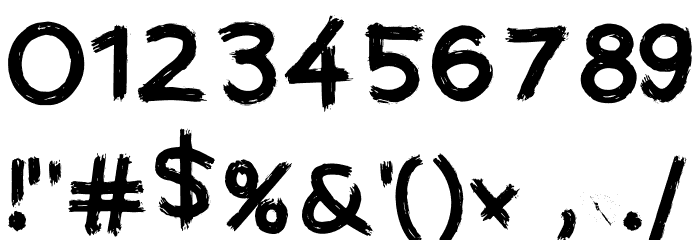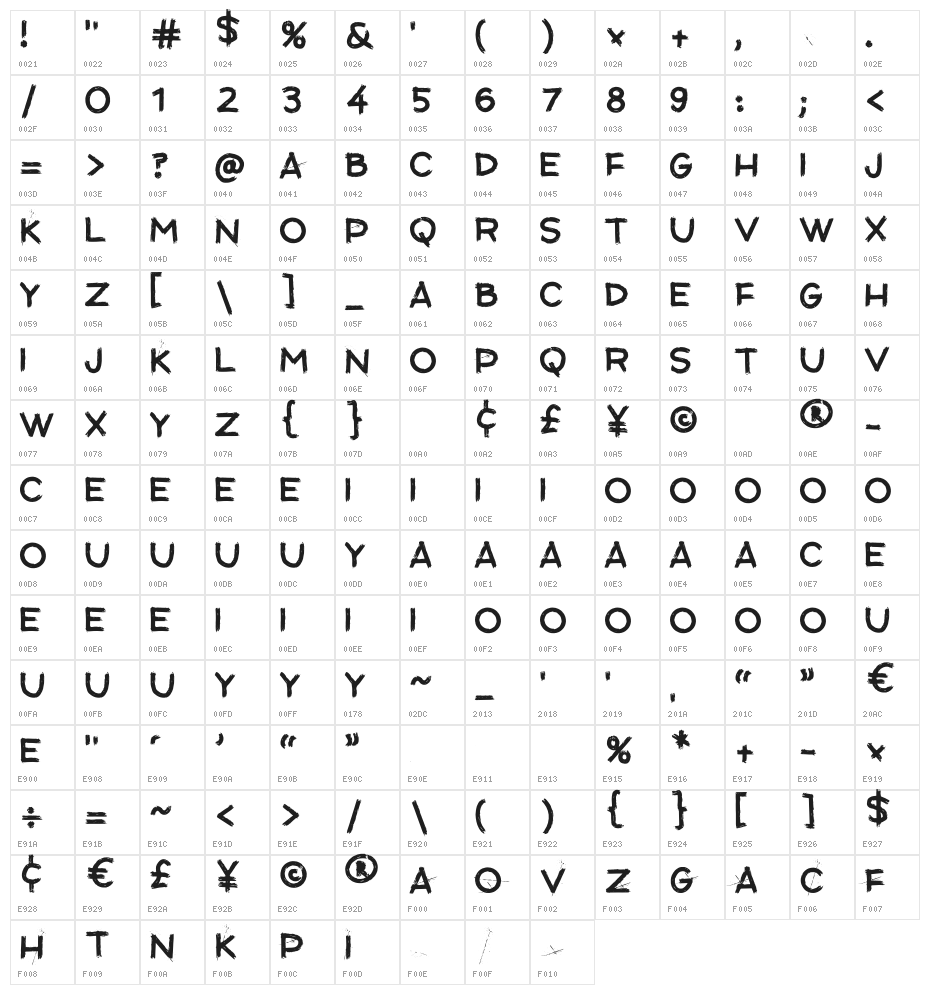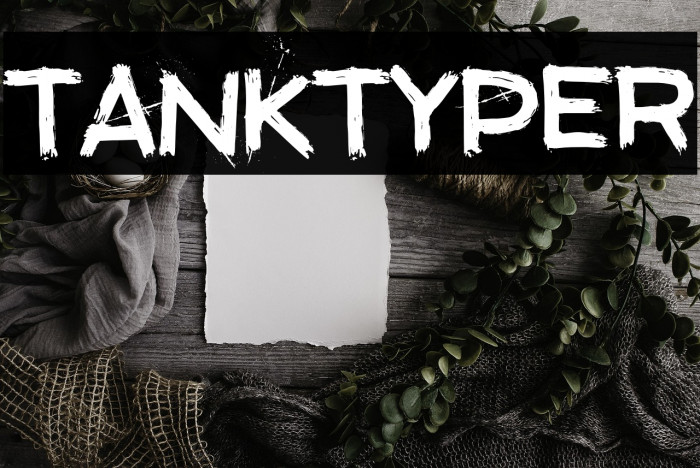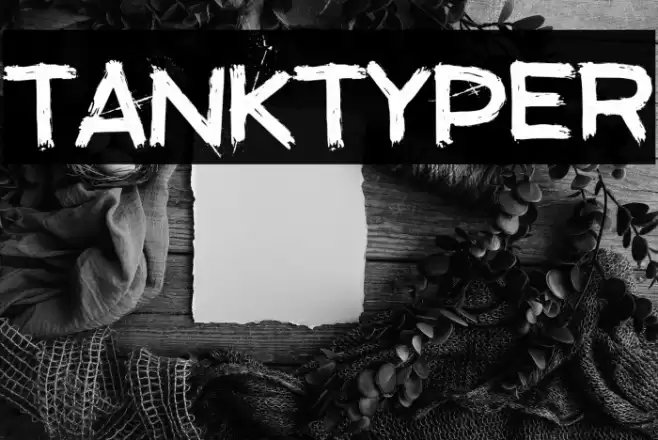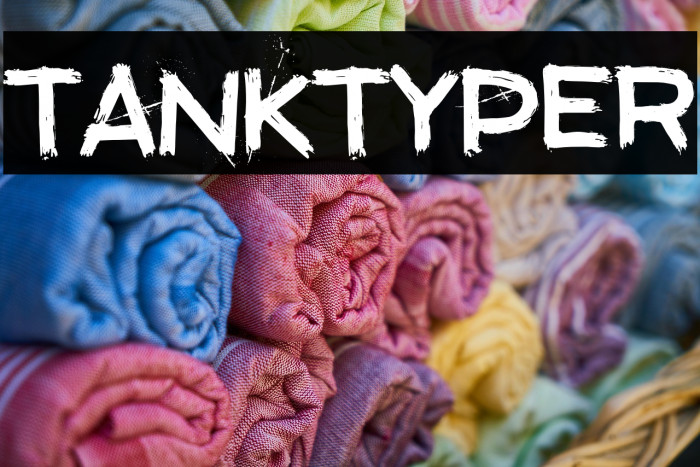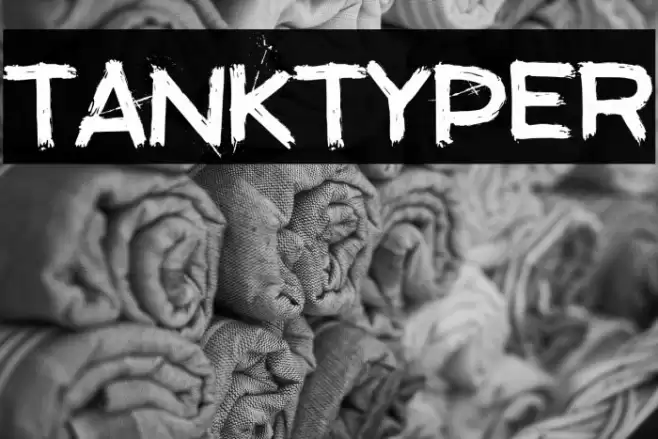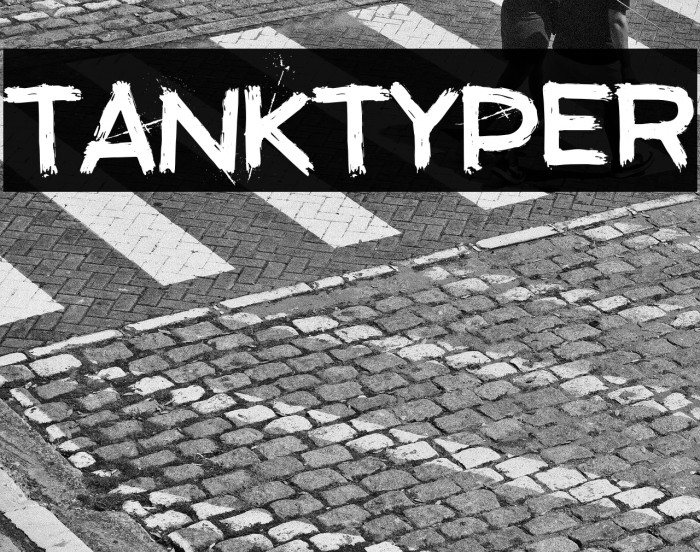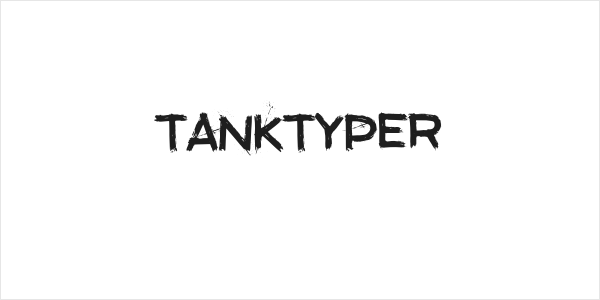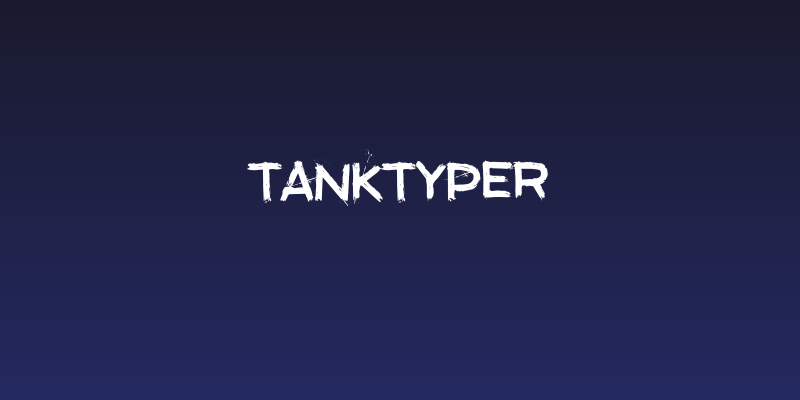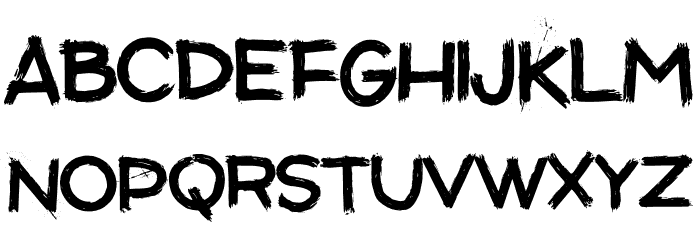
TANKTYPER Font
TANKTYPER Description
This font features a bold, distressed style with a rough, textured appearance. The characters are uppercase and have a hand-painted look, giving them a rugged and dynamic feel. The strokes are uneven, with visible brush-like edges that add a sense of movement and energy. This font is ideal for creating impactful designs that require a strong visual presence. The numbers and special characters maintain the same distressed aesthetic, ensuring consistency across all elements.